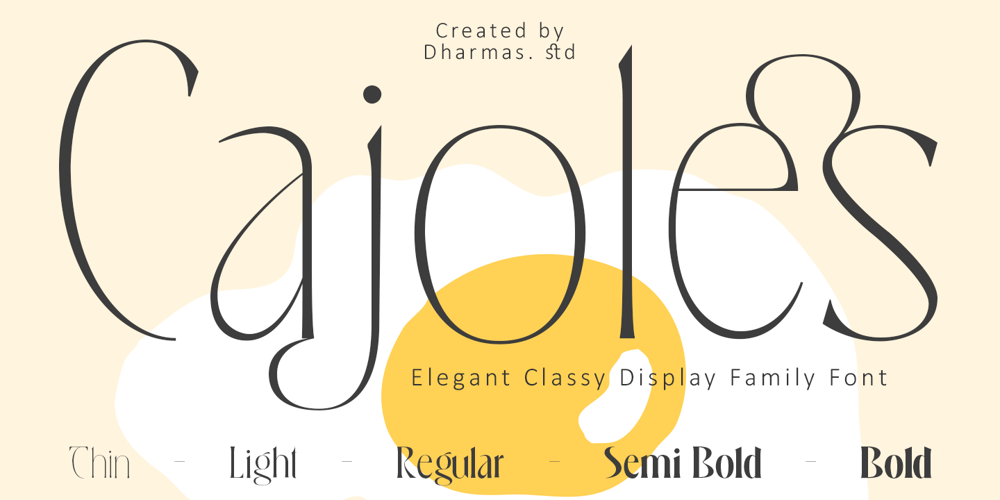
Cajoles Font Family was designed by Ahmad Jamaludin and published by Ahmad Jamaludin. Cajoles contains 5 styles and family package options. Introducing Cajoles – a brand-new modern typeface family inspired by the elegance of Art Nouveau!Cajoles draws its charm from the sophistication of 1910s Italian lake posters, blending an Art Nouveau flair with contemporary design. This typeface embodies a perfect balance between eccentricity and delicacy, much like a garden in full bloom.Cajoles is a display serif typeface, ideal for headlines and short to medium-length texts. It features five weights: Thin, Light, Regular, Semi Bold, and Bold. Cajoles stands out for its nonconformist, romantic, and delicate character, enhanced by extravagant alternates. Its unique curves and refined details create a rhythmic and timeless elegance. The Bold version, with its high contrast, ensures maximum visibility.What’s Included? Cajoles Main Files 5 Weights: Thin, Light, Regular, Semi Bold, and Bold Unique Glyph Characters Instructions (Access special characters in all apps, even in Cricut Design) Accessible in Adobe Illustrator, Adobe Photoshop, Microsoft Word, and even Canva! PUA Encoded Characters, fully accessible without additional design software Language Support: Danish, English, Estonian, Filipino, Finnish, French, Friulian, Galician, German, Gusii, Indonesian, Irish, Italian, Luxembourgish, Norwegian Bokmål, Norwegian Nynorsk, Nyankole, Oromo, Portuguese, Romansh, Rombo, Spanish, Swedish, Swiss-German, Uzbek (Latin)If you need a custom license or have questions, please visit our website: www.dharmasstudio.com or come and say hello over on Instagram! https://www.instagram.com/dharmas.studio/Have a great day!Dharmas Studio